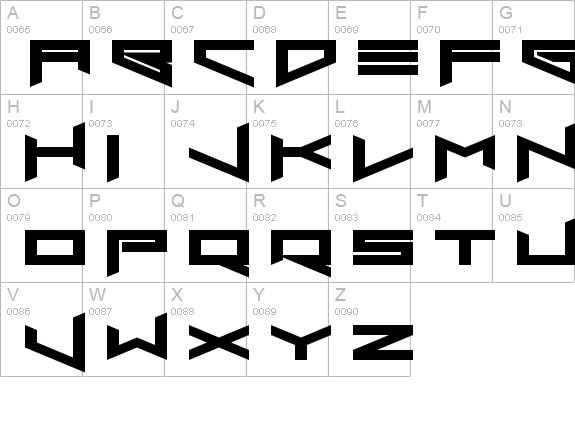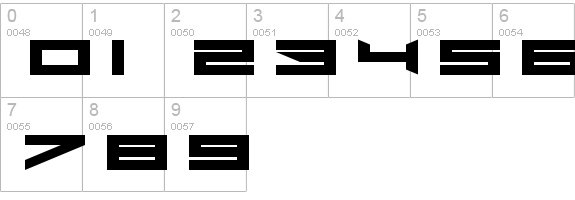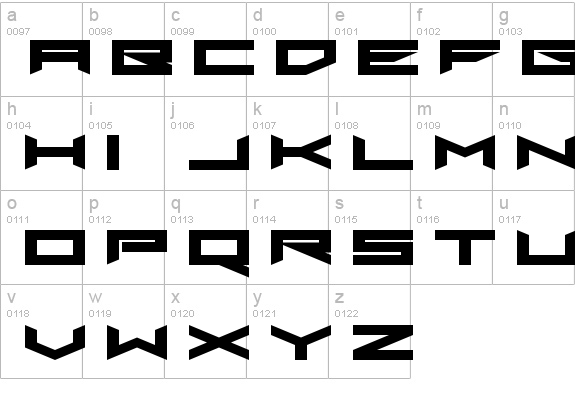
Xero's Proof Regular Font Details
Xero's Proof Regular is the standard, neutral variant in the Xero's typeface family \xE2\x80\x94 well suited to general body text, paragraphs, and standard typographic work.
Xero's Proof Regular font is a modern and versatile typeface that exudes elegance and sophistication. With its clean lines and balanced proportions, this font is perfect for a wide range of design projects, from branding to editorial layouts. The sleek and professional appearance of Proof Regular makes it a popular choice for both print and digital applications. This font is available for free download at FontsMarket.com, giving designers and creatives easy access to this high-quality typeface for their projects. Whether you're working on a website, advertisement, or any other design project, Xero's Proof Regular font is sure to make a lasting impression with its timeless appeal and readability. Don't miss out on the opportunity to elevate your designs with this stunning font that combines classic elegance with a contemporary edge. Download Xero's Proof Regular font today and take your design projects to the next level.